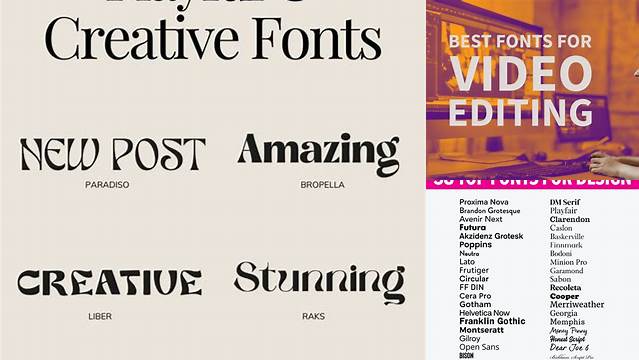
Best Fonts For Editing: Download & Enhance Your Videos
Are you a content creator, designer, or video editor looking to elevate your projects with the perfect typography? Well, you're in the right place! Finding the ideal fonts for editing can significantly impact your project's overall look and feel. This guide is your one-stop resource for discovering and downloading the best fonts for editing, from classic serifs to modern sans-serifs and everything in between. We'll dive into various font styles, their suitability for different projects, and where to find them. So, let's get started and transform your creative vision into reality!
Why Font Choice Matters in Editing
Choosing the right fonts for editing is not just about aesthetics; it's a fundamental aspect of effective communication and brand identity. The fonts you select can convey a specific mood, tone, or message. For example, a sleek, modern sans-serif font might be perfect for a tech startup's promotional video, while a more classic serif font could be ideal for a documentary about history. Fonts also play a crucial role in readability. The best fonts for editing are legible, ensuring your audience can easily understand the text, whether it's titles, subtitles, or on-screen text. If a font is too ornate or difficult to read, it can distract from your content and frustrate viewers. Moreover, the fonts you use contribute to your project's overall visual coherence. Consistency in font usage across all elements – titles, lower thirds, credits, etc. – helps create a professional, polished look. This attention to detail can significantly enhance your project's impact and credibility. Furthermore, the right fonts can also reinforce your brand. By consistently using specific fonts, you create a visual identity that audiences will recognize and associate with your brand. This is particularly important for video editors and content creators who produce multiple projects. Lastly, the strategic use of fonts can also influence the emotional response of your viewers. A bold, dynamic font might convey excitement or energy, while a softer, more rounded font could evoke a sense of calmness or warmth. Therefore, by carefully selecting fonts for editing, you can have a profound impact on how your content is perceived and remembered.
Key Considerations for Font Selection
Before you dive into the world of font downloads, it's essential to understand the key factors that influence font selection. First, consider your project's purpose and target audience. Who are you trying to reach? What message do you want to convey? This will guide your font choices. For instance, if you're creating content for children, you might opt for playful, rounded fonts. If your target audience is professionals, a clean, legible font is generally preferable. Second, think about readability. Ensure the font you choose is easy to read on screen, especially at different sizes and on various backgrounds. Avoid overly intricate or decorative fonts for body text, as they can be difficult to decipher. Instead, opt for fonts with clear letterforms and good spacing. Third, pay attention to font styles and their meanings. Different font families have distinct characteristics and associations. Serifs (fonts with small strokes at the end of letters) often convey a sense of tradition and formality, while sans-serifs (fonts without these strokes) tend to appear modern and clean. Script fonts can add elegance, while display fonts are great for headlines and titles. Fourth, consider the context where your fonts will be used. Are you using them for titles, subtitles, or body text? Different fonts might be suitable for these different applications. You'll also need to think about the background where the text will be displayed. The font should have enough contrast against the background. For example, a dark font on a light background is usually the best option for readability. Lastly, always check font licensing. Before downloading and using a font, make sure you have the appropriate license for your intended use. Some fonts are free for personal use but require a commercial license for professional projects. Understanding font licensing will help you to protect your content and your business.
Top Font Styles for Editing
Now, let's explore some popular font styles that are widely used in editing and perfect for downloading. These styles cover a range of aesthetics, allowing you to choose the ones that best suit your creative needs. Let's dive in!
Sans-serif fonts are a staple in modern design and editing. Their clean lines and lack of serifs (the small strokes at the end of letters) make them incredibly versatile and highly readable on screens. Because of this, they're often used for headings, subheadings, and body text in video projects. Common examples include Helvetica, Arial, Open Sans, and Lato. These fonts project a sense of modernity, simplicity, and clarity. They are an excellent choice for projects that require a contemporary or minimalist look. The readability of sans-serif fonts at smaller sizes also makes them perfect for subtitles and lower thirds, where clear and concise communication is essential. Consider using a bold or heavy weight of a sans-serif font for titles to add emphasis and visual interest. For projects that need a clean, uncluttered aesthetic, sans-serifs are the way to go. You'll find that sans-serif fonts are a great choice for projects of all types, especially those that cater to a younger audience, or those who have a knack for technology. Their simple yet modern feel can make your video feel much more appealing to a younger audience, so feel free to incorporate them into your projects.
Serif fonts, with their traditional appearance, are renowned for adding a touch of sophistication, elegance, and readability to projects. These fonts are characterized by the small strokes, or serifs, at the ends of the letterforms. They evoke a sense of tradition, authority, and trustworthiness. Popular examples include Times New Roman, Georgia, and Garamond. Due to their great legibility, they're frequently used for body text in projects requiring a classic or professional look. This makes them great for documentaries or projects that want to project a traditional image. Serif fonts are great for longer texts in video editing projects because they make long paragraphs easier to read. You can also use them to create a vintage or timeless feel, which would be perfect for historical content or dramatic pieces. However, be careful when using serif fonts at small sizes on screens, as the serifs can sometimes make the text appear cluttered. If your project calls for a touch of class and timeless style, serif fonts will add the right dose of authority.
Script Fonts
Script fonts add a personal touch and sense of style to editing projects. They mimic handwriting or calligraphy and are known to bring an element of elegance, creativity, and personality to your visuals. Examples include Lobster, Pacifico, and Dancing Script. These are very useful when you need to convey a sense of creativity and character. Script fonts are best suited for titles, headings, and short phrases. They can also be used in projects that convey a more artistic or whimsical vibe. However, it's essential to use script fonts sparingly and with caution. Because of their decorative nature, script fonts can often be difficult to read, particularly at smaller sizes or in long blocks of text. Always make sure the font is clear and easily readable, especially when overlaying text onto a moving video. Script fonts can also add a creative and eye-catching flair to your title cards and intro sequences. So, make sure you use them wisely, and in a way that will complement the overall aesthetic and feel of your video content.
Display Fonts
Display fonts are bold and captivating choices designed to grab the viewer's attention and are ideal for adding visual interest to your video projects. They are characterized by their unique and often exaggerated designs and are specifically made for headlines, titles, and other areas where the text needs to make a statement. Examples include Impact, Bebas Neue, and Montserrat. Display fonts can add personality and flair to your content, allowing you to create visuals that stand out from the crowd. Display fonts come in a huge range of styles, from chunky block letters to elegant, intricate designs. Be sure to use display fonts sparingly because their unique designs can be too distracting if used in excess. Also, always consider their legibility, as some display fonts can be challenging to read, especially at small sizes. It is best to use them in short bursts or to create an impactful title sequence. Display fonts are a fantastic way to inject personality into your content. Just make sure you use them strategically.
Where to Download Fonts
Okay, now that you have a handle on the different font styles, it is time to know where to download the best fonts for editing. Here are some of the most reliable and popular sources for font downloads:
Google Fonts is a fantastic resource, especially if you are on a budget. It is free to use, has a huge collection of high-quality fonts, and is easy to integrate into your editing projects. Google Fonts offers a wide variety of fonts, from classic serifs to modern sans-serifs and everything in between. Google Fonts offers a diverse collection of fonts, perfect for a wide array of video editing projects. With simple integration options, you can easily incorporate these fonts into your favorite video editing software. If you're looking for quality fonts without the price tag, Google Fonts is a great place to start. Google Fonts makes it so easy to download any font and use it in your videos. You will find that Google Fonts is a very simple, user-friendly platform, that's free and easy to access! Google Fonts is completely free for personal and commercial use, so you can download any font, and it will be safe for use in any video projects. Google Fonts is a must-have resource for anyone looking to download fonts!
Adobe Fonts (Typekit)
If you're a subscriber to Adobe Creative Cloud, you have access to Adobe Fonts, a vast library of premium fonts. These fonts offer a wide array of professionally designed typefaces and excellent quality. Adobe Fonts is a great option if you need high-quality fonts for professional projects. Adobe Fonts is an integral part of the Adobe Creative Cloud ecosystem. You'll find thousands of high-quality fonts, making it easy to create cohesive and polished designs. When you have access to the Adobe Creative Cloud, then accessing these fonts is very easy and smooth. Adobe Fonts ensures that you have a good selection of fonts to elevate your editing work. Adobe Fonts is a great option because it provides you with a comprehensive library that is well-suited to both professional and casual projects. You will have access to many amazing fonts, so give it a try!
By carefully selecting and downloading the best fonts for editing, you can dramatically enhance the visual appeal and effectiveness of your video projects. Remember to consider the font style, readability, licensing, and target audience. Using this guide, you'll be well on your way to elevating your content with perfect typography. So go out there, experiment, and create amazing video content that truly resonates with your audience. Happy editing, guys! Good luck, and have fun with it! You're going to make something awesome.